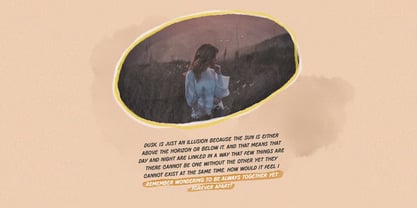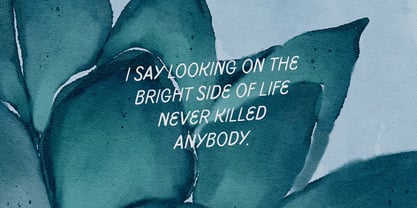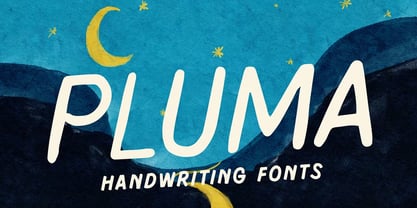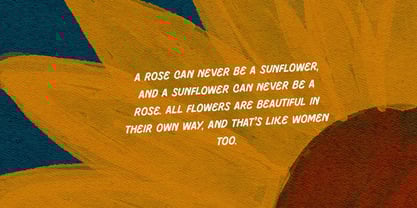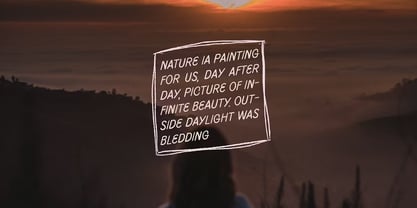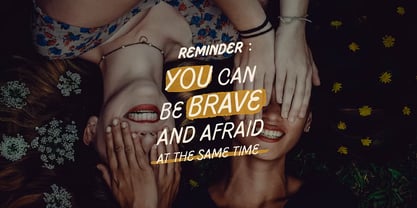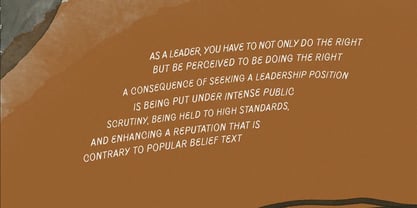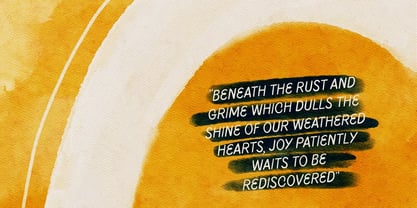
Pluma
by Maghrib Type
Pluma – Handwriting Font
Pluma is a warm, expressive, and characterful handwriting font. With its smooth, rounded letterforms and slightly slanted style, Pluma delivers a personal yet modern feel. The natural, hand-drawn strokes make it perfect for a wide range of creative design needs.
Pluma comes in two styles: Thin, with a light and soft appearance, and Bold, which is strong and eye-catching. Both styles are designed to complement each other and offer flexibility in visual expression.
This font is ideal for posters, logos, music and film covers, book titles, product packaging, social media design, invitations, merchandise, editorials, and presentations.
Pluma is a great choice for those looking to convey messages with a heartfelt, personal touch. Its clean yet expressive handwritten style makes it highly versatile for both professional and personal projects.